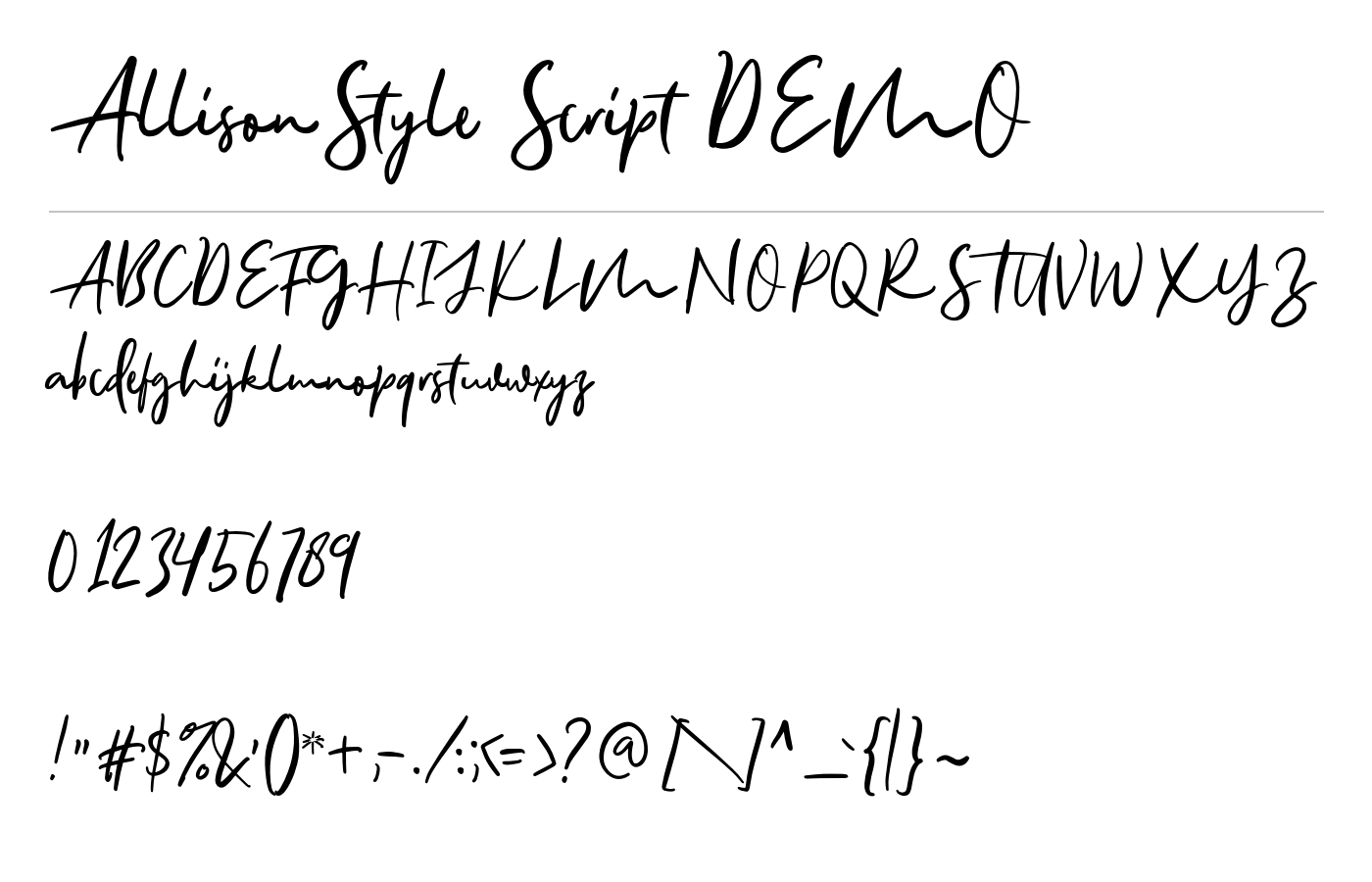
AllisonStyle Script DEMO is a lively and elegant handwritten script font featuring a casual, flowing style with varied stroke widths that add a natural, personal touch. Its tall, slender letterforms with distinctive loops and a slightly imperfect, organic feel make it perfect for creative branding, invitations, and stylish headlines that need a fresh, approachable personality. This font works well where a hand-crafted look is desired, bringing warmth and individuality to designs.
AllisonStyle Script DEMO Font
About AllisonStyle Script DEMO Font
| Font family | AllisonStyle Script DEMO Font |
| Designer | Sarid Ezra |